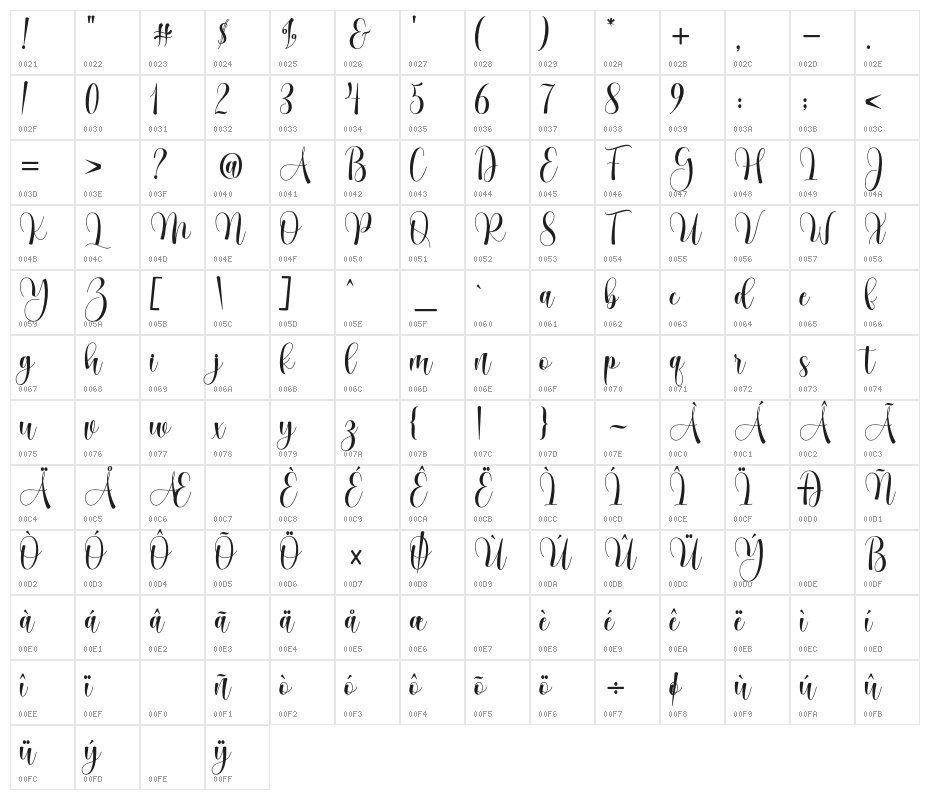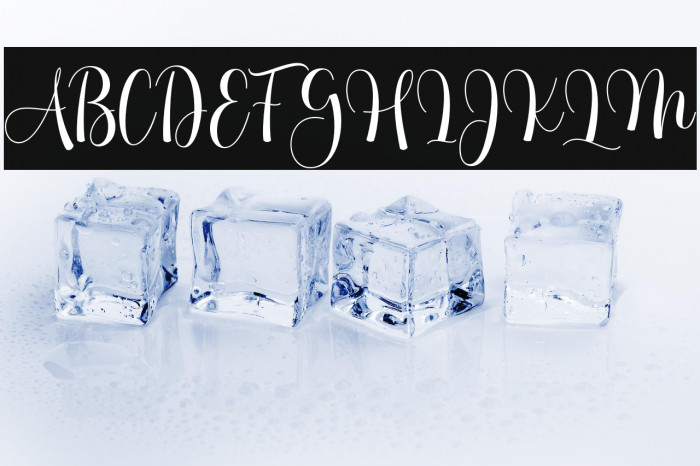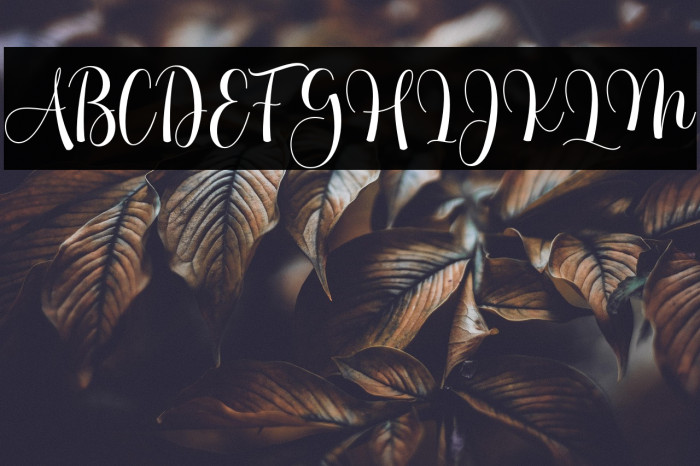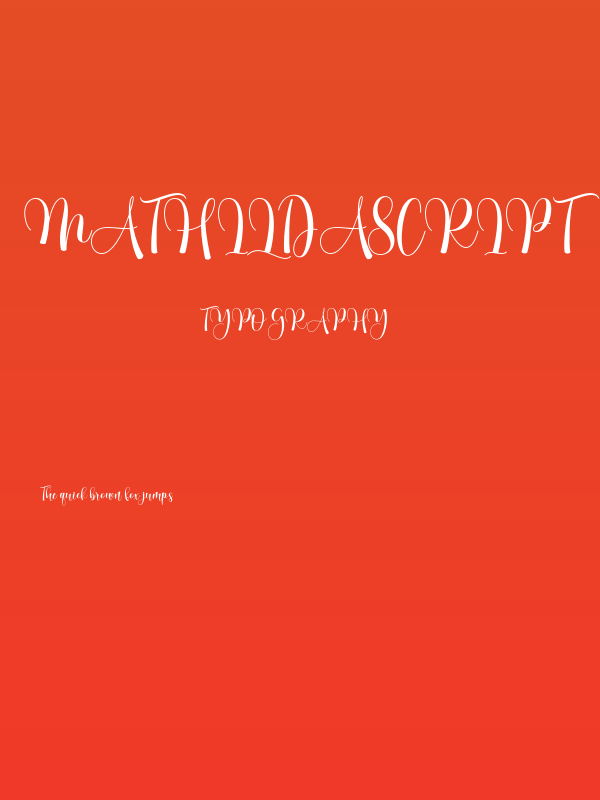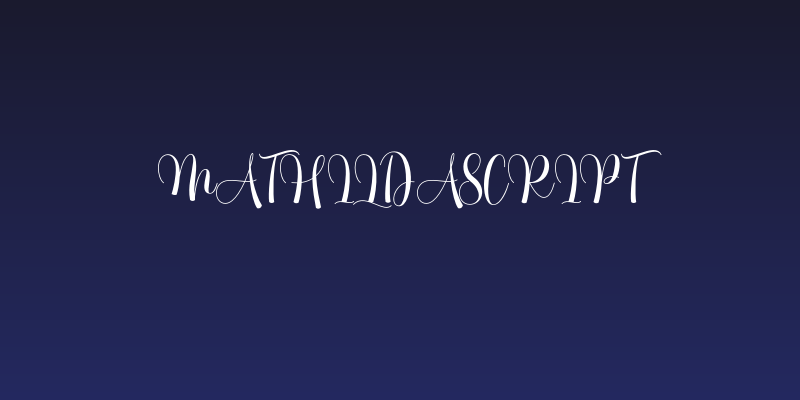
MathildaScript Font
MathildaScript Description
This elegant script font features flowing, cursive letters with a modern flair. The uppercase letters are characterized by their sweeping curves and loops, giving a sense of movement and grace. The lowercase letters maintain a consistent style, with smooth connections and a slightly more compact form. The numerals are stylish and integrate seamlessly with the overall design, while the special characters retain the same fluidity and elegance. This font is perfect for adding a touch of sophistication and charm to any project.
| Use Case | Logos, Invitations, Branding |
| Proposed Projects | Ideal for wedding invitations, greeting cards, branding, and elegant logos. |